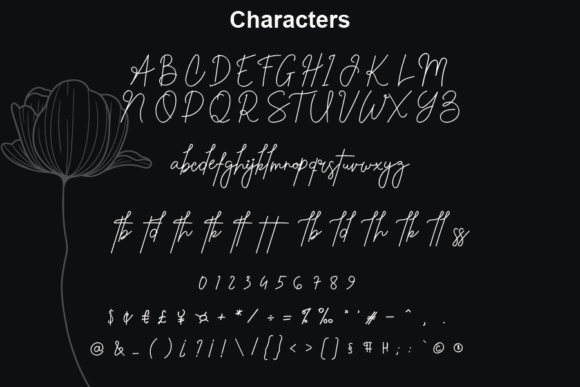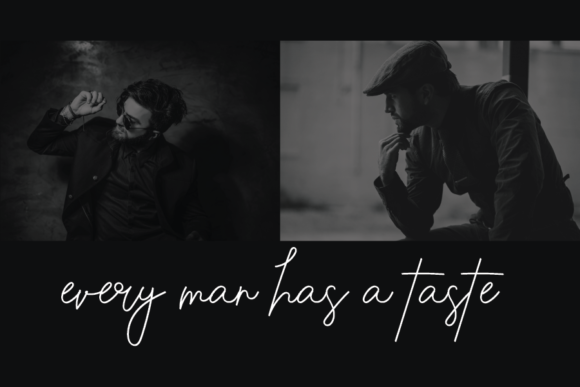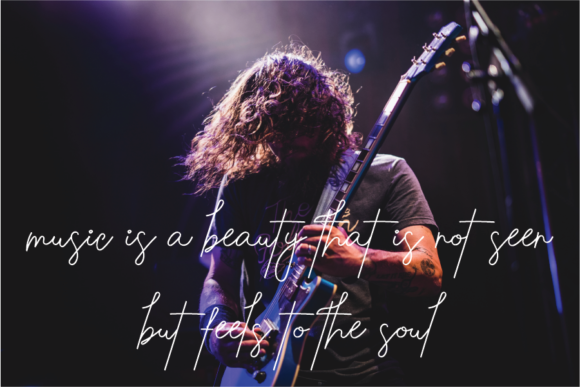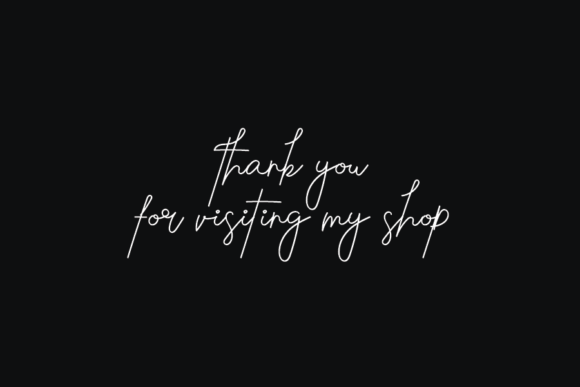
Reautiful Storie Font – Free Download
Introduction to Reautiful Storie Font
Reautiful Storie is a thin, delicate and neat handwritten font.
It looks stunning on wedding invitations, thank you cards, quotes, greeting cards, logos, business cards and every other design which needs a customized touch .
Key Features of Reautiful Storie Font
Why Choose Reautiful Storie Font?
Reautiful Storie Font offers exceptional quality and versatility, making it a valuable addition to your design toolkit. Whether you’re creating for personal projects or commercial use, Reautiful Storie Font delivers professional results.